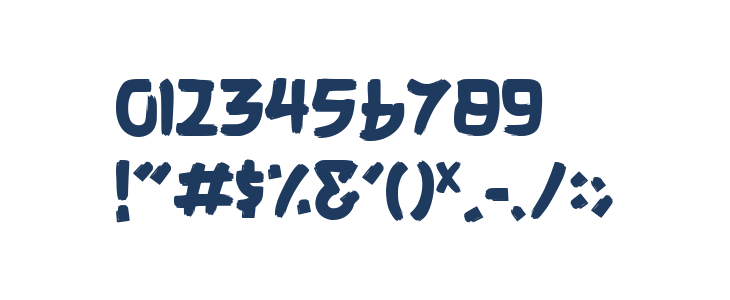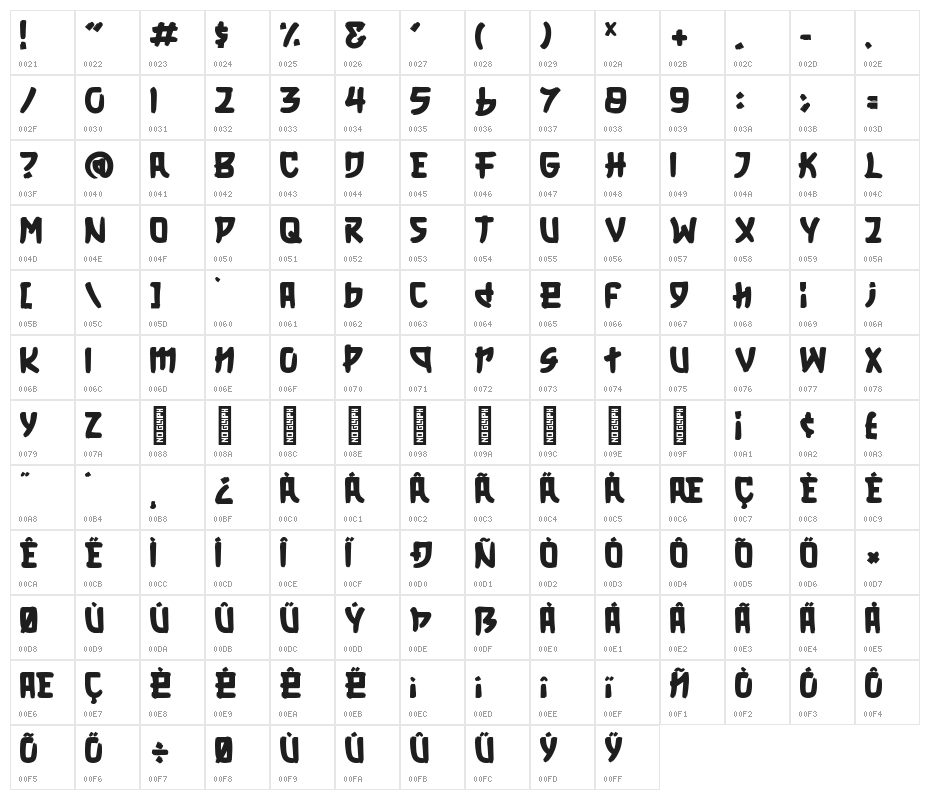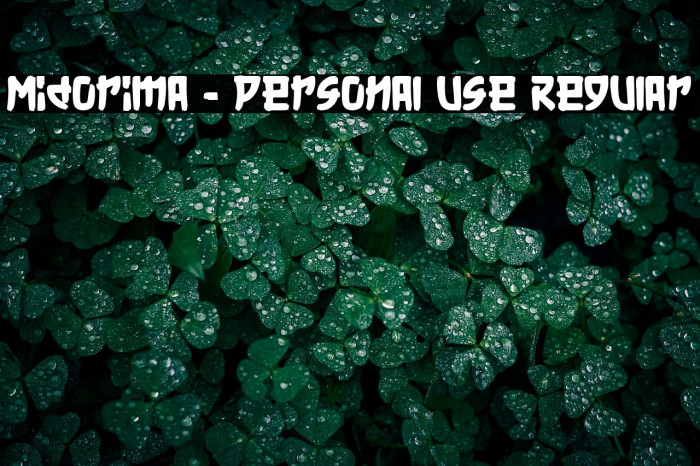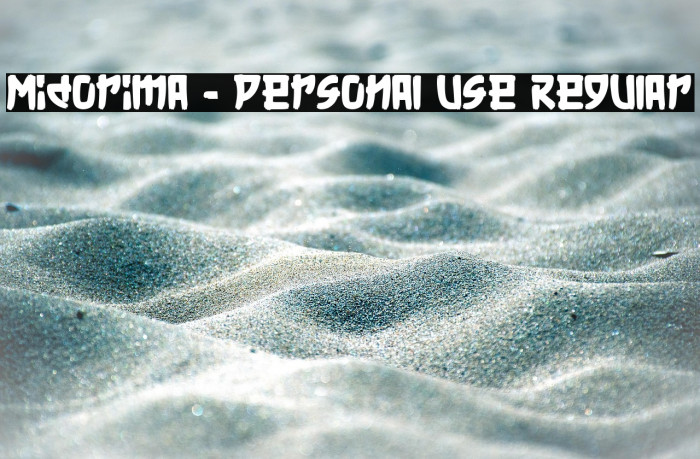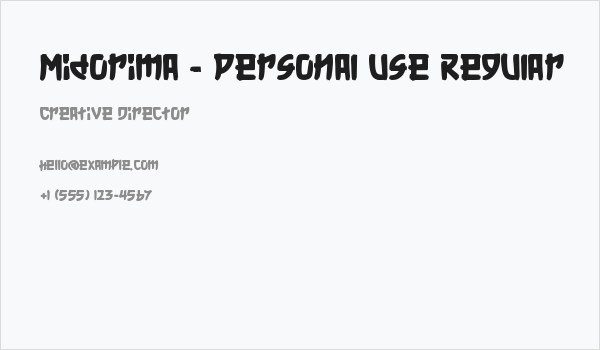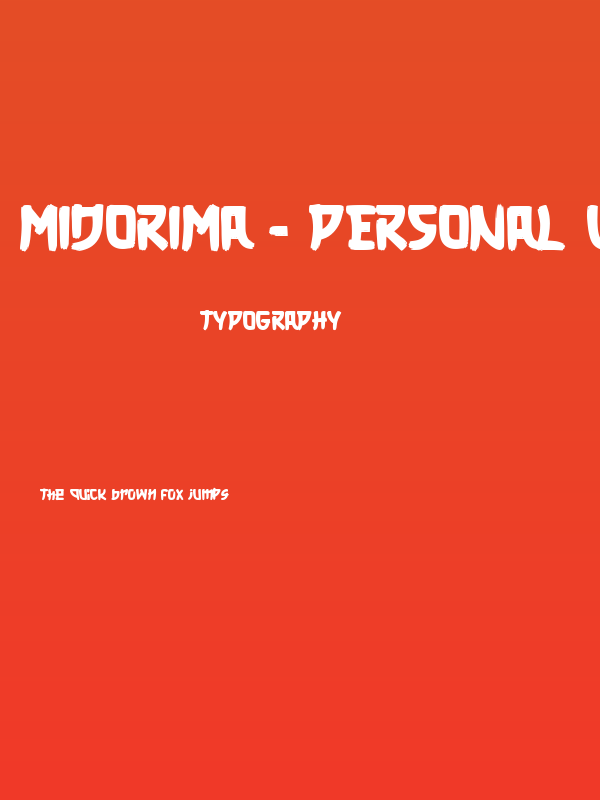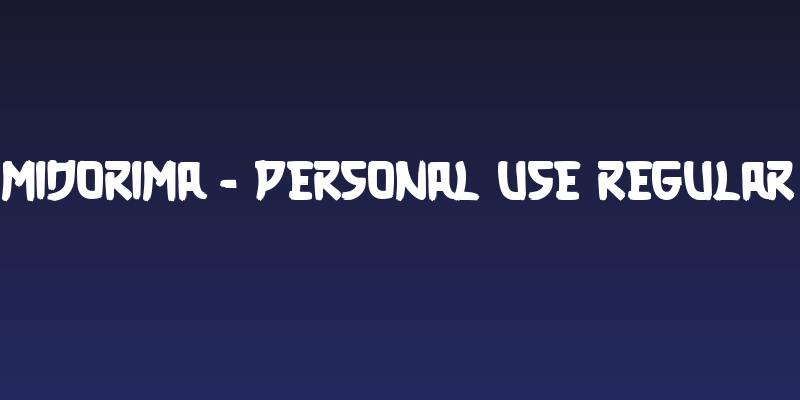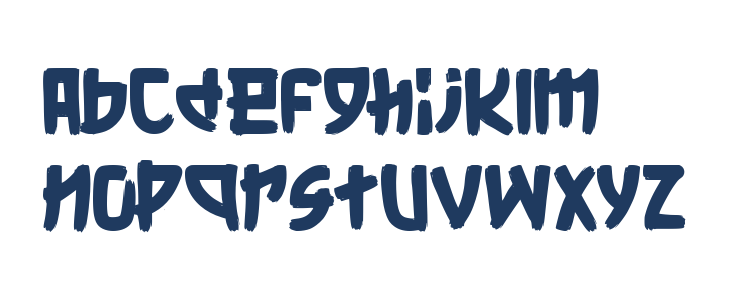
Midorima - Personal Use Regular Font
Midorima - Personal Use Regular Description
This font features a bold and expressive style with thick, brush-like strokes that give it a dynamic and energetic appearance. The characters are slightly condensed, with a playful and artistic flair that makes them stand out. The uppercase and lowercase letters maintain a consistent style, while the numbers and special characters complement the overall design. The font's unique character shapes and bold presence make it suitable for creative and eye-catching designs.
| Overall Style | Modern, Artistic |
| Proposed Projects | Ideal for posters, logos, branding, and artistic projects that require a bold and creative touch. |